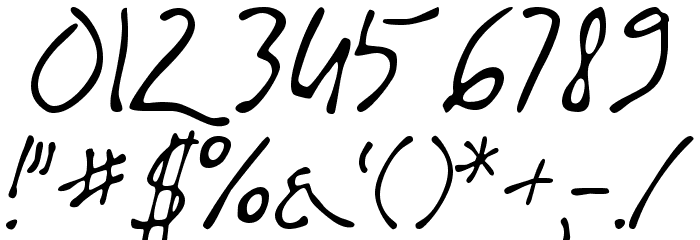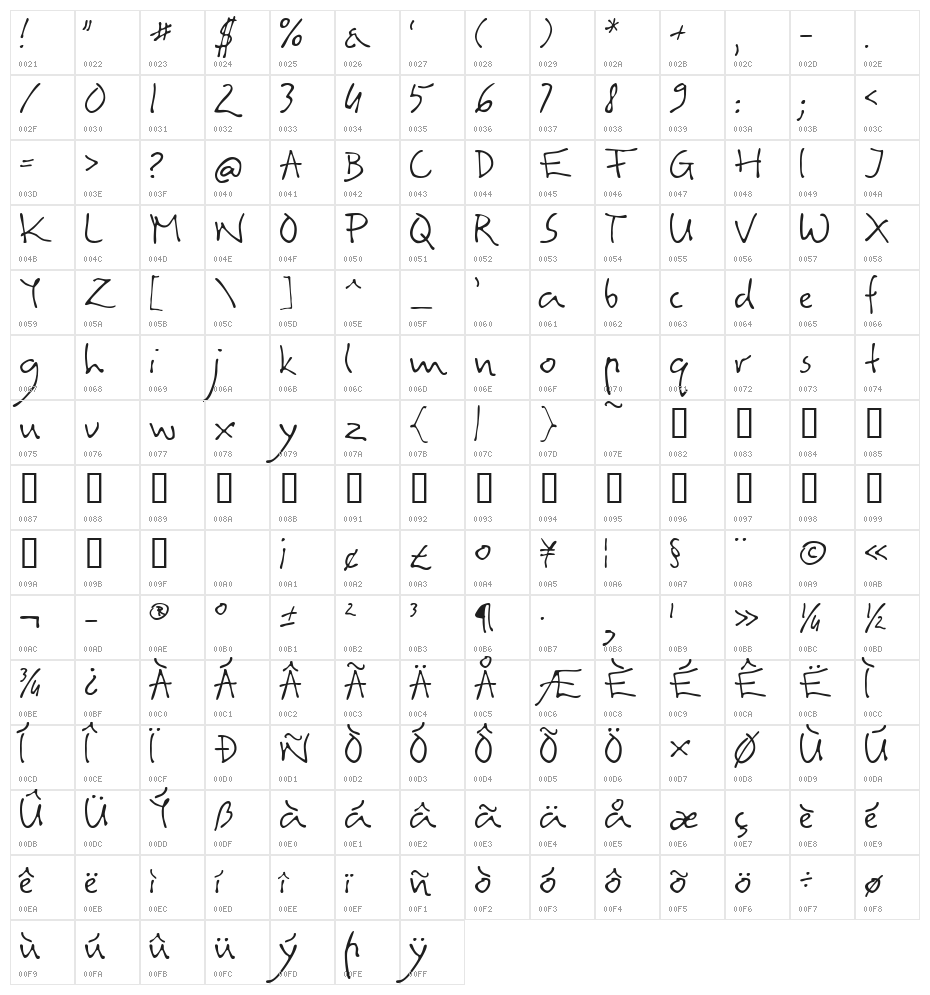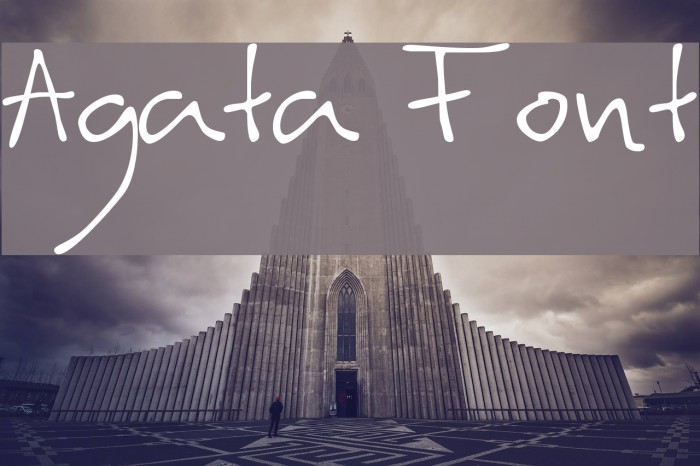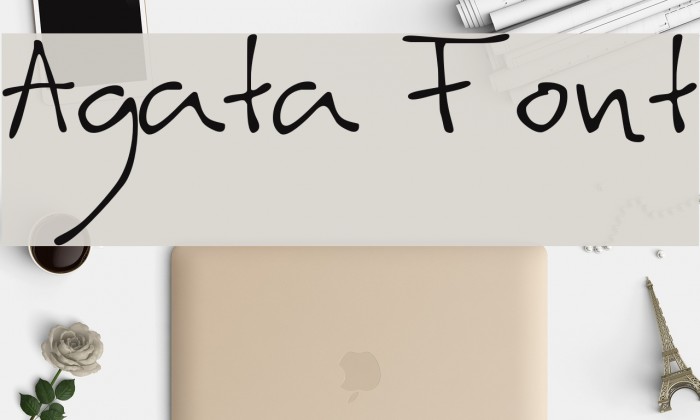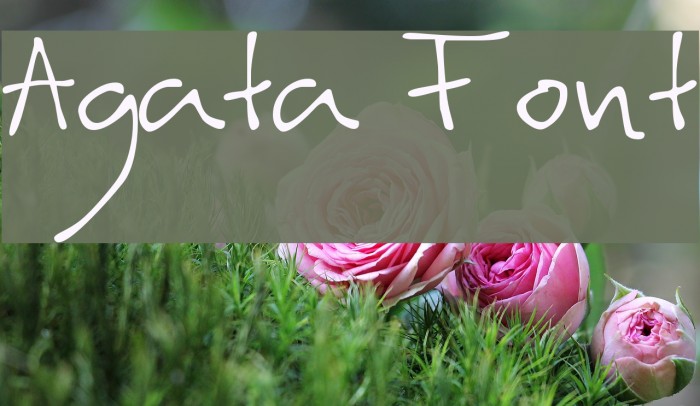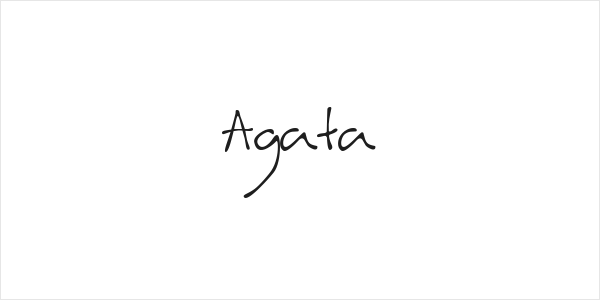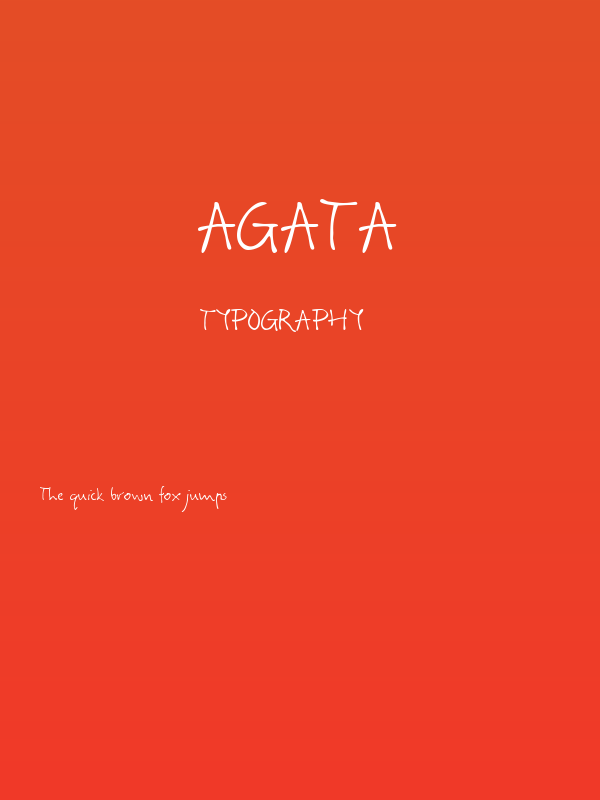
Agata Font
Agata Description
This font exudes a casual, handwritten style, characterized by its fluid and organic strokes that mimic natural handwriting. The letters are slightly irregular, adding a personal and informal touch. The uppercase and lowercase letters maintain a consistent style, with a playful and approachable appearance. The numerals and special characters follow the same aesthetic, ensuring uniformity across all glyphs. This font is ideal for projects that require a personal or creative flair, such as invitations, greeting cards, or artistic branding.
| Use Case | Headlines, Artistic projects, Personal notes |
| Proposed Projects | Ideal for invitations, greeting cards, artistic branding, and personal projects. |